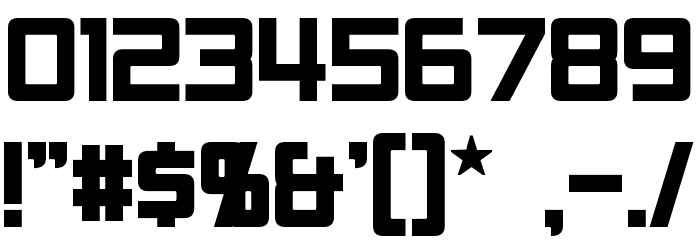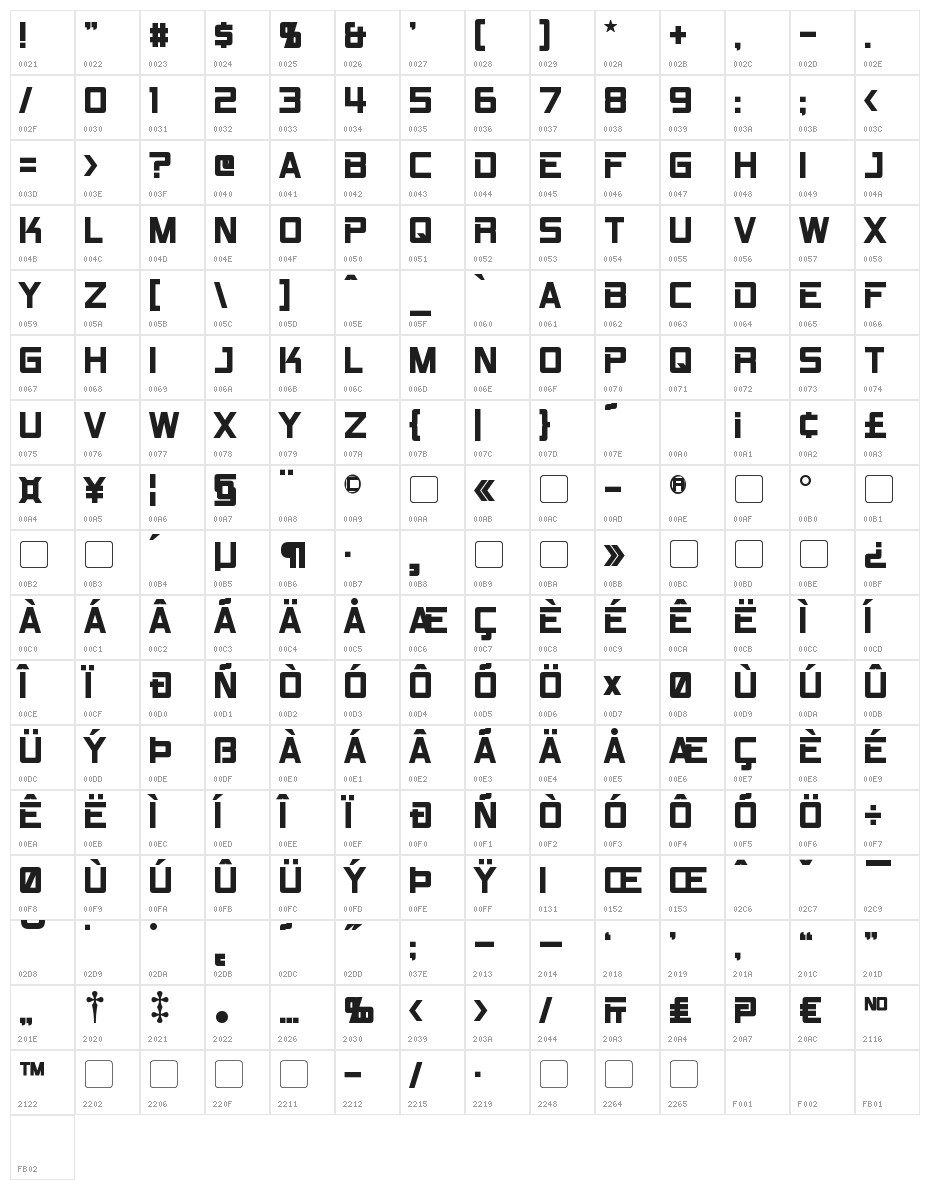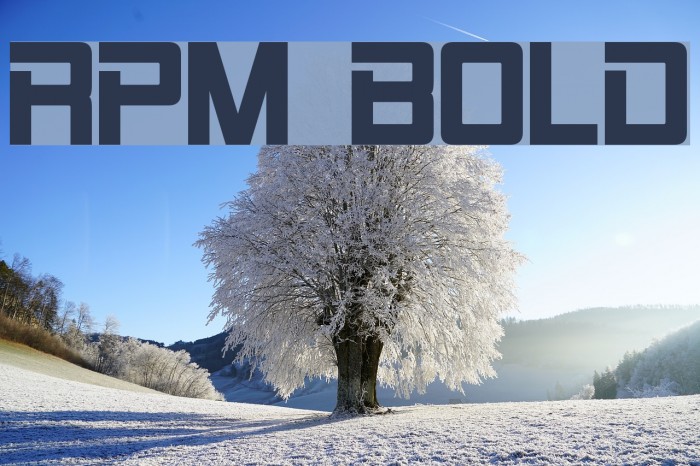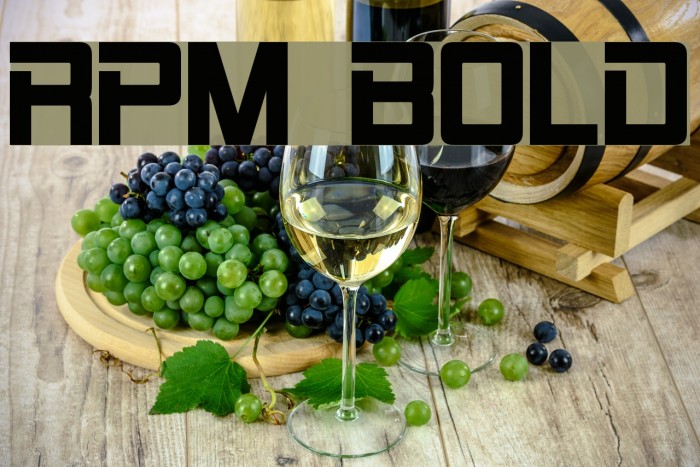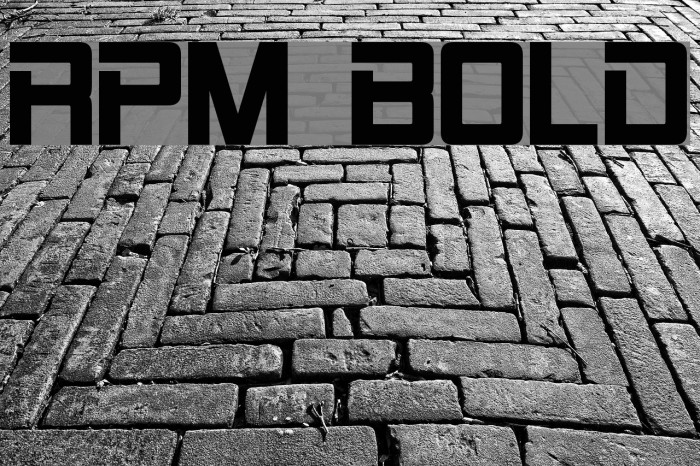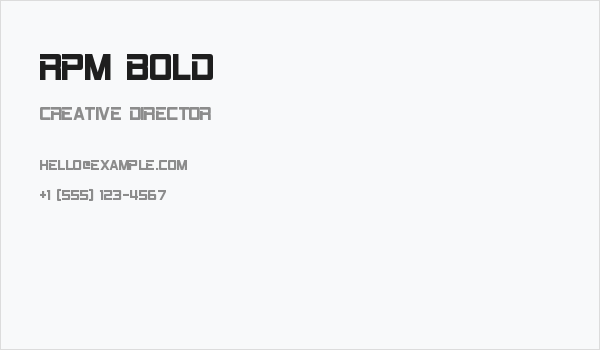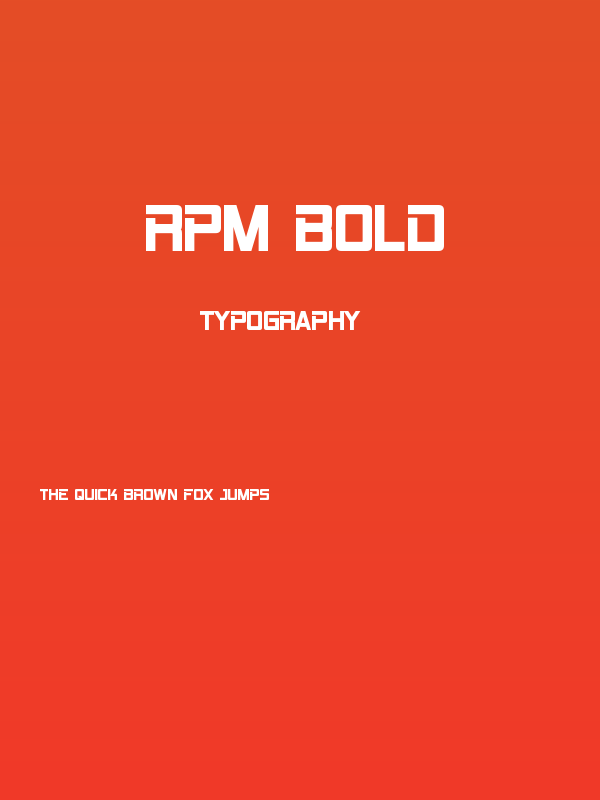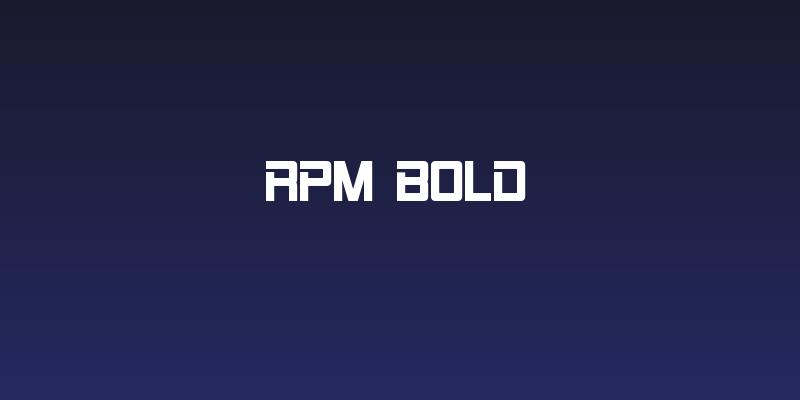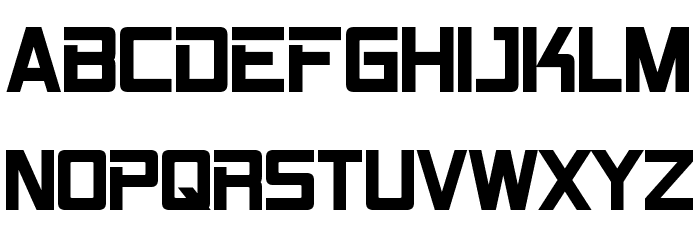
RPM Bold Font
RPM Bold Description
This font features a bold and geometric design with a strong, industrial feel. The characters are constructed with thick, uniform strokes, giving them a robust and impactful appearance. The angular shapes and sharp edges contribute to a modern and futuristic aesthetic. The uppercase and lowercase letters maintain a consistent style, while the numerals and special characters integrate seamlessly with the overall design. This font's boldness and clarity make it suitable for attention-grabbing headlines and display purposes.
| Proposed Projects | Ideal for use in branding, posters, signage, and any project requiring a strong, modern typeface. |